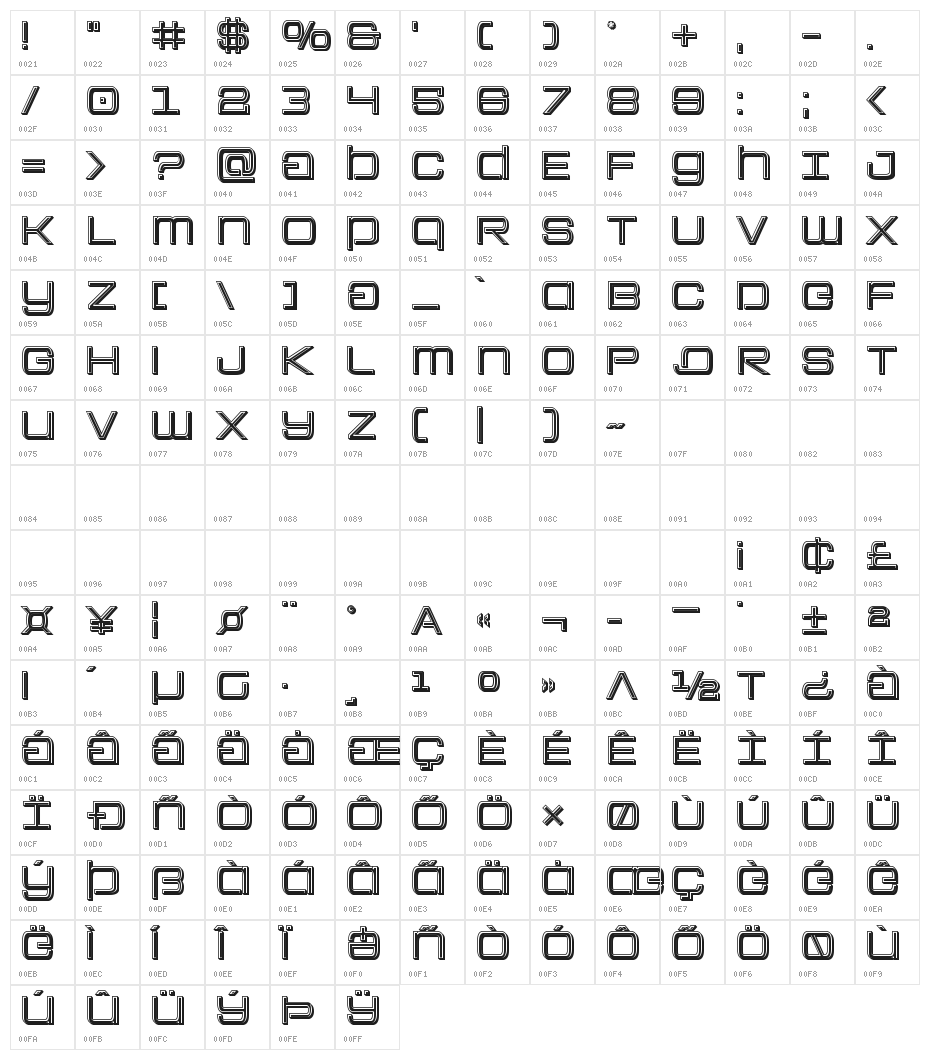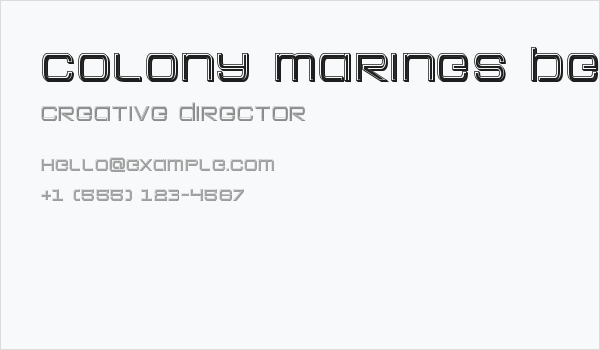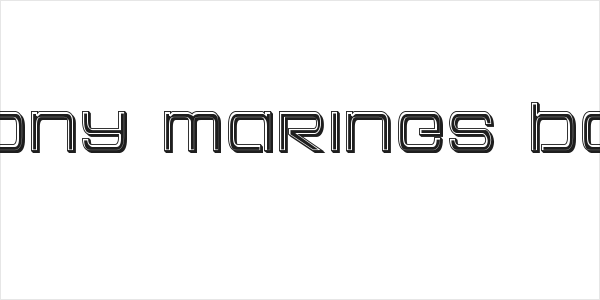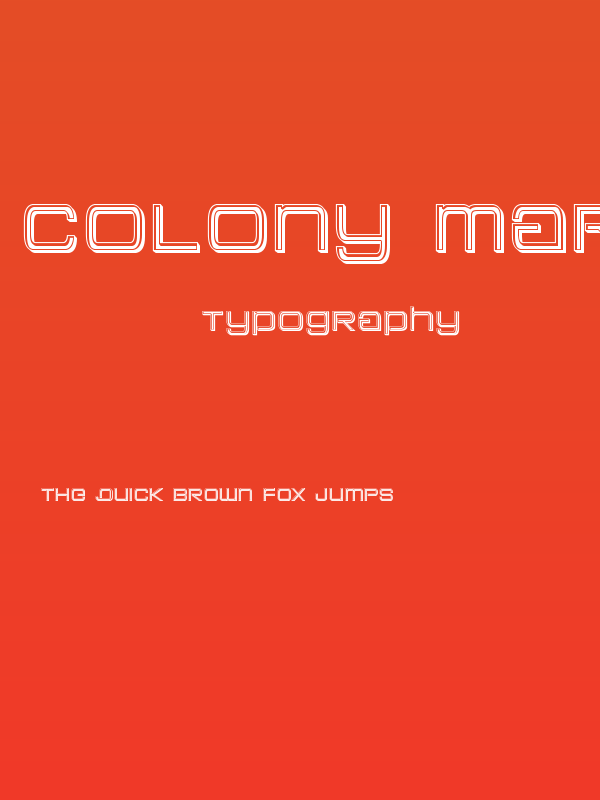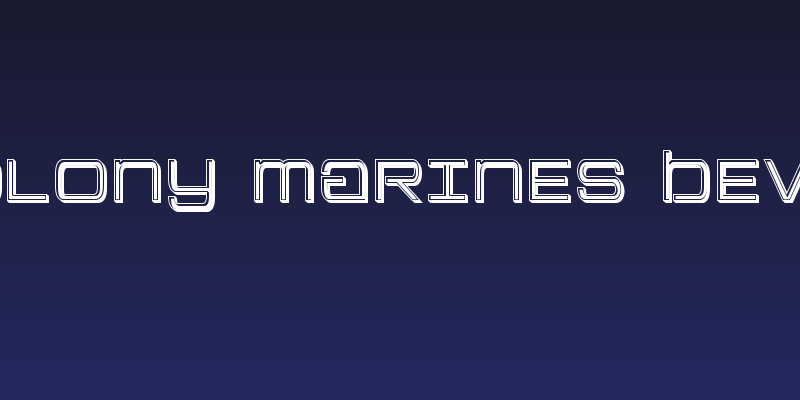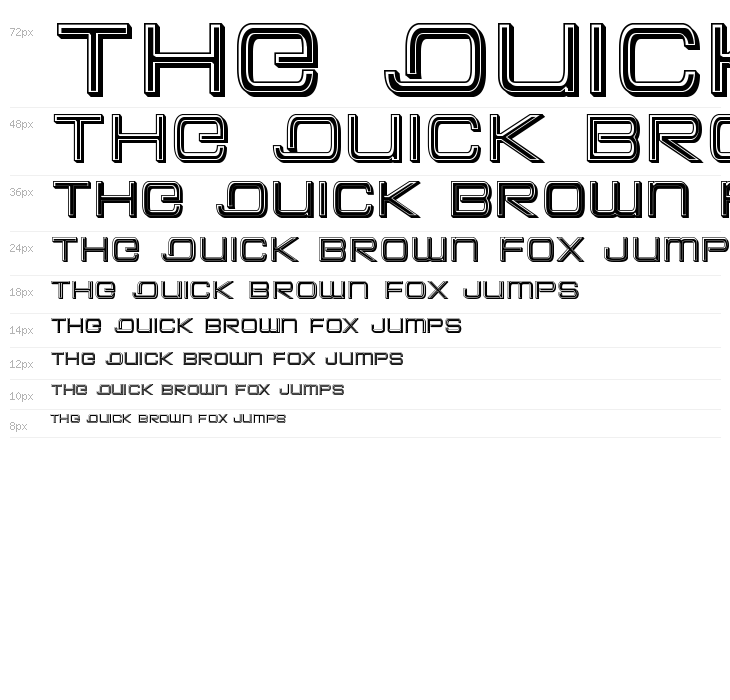
Colony Marines Bevel Font
Colony Marines Bevel Description
This font features a futuristic and industrial design with a beveled effect that gives it a three-dimensional appearance. The characters are constructed with clean, geometric lines and sharp angles, creating a sense of precision and modernity. The uppercase and lowercase letters maintain a consistent style, with the uppercase being slightly more pronounced. The numbers and special characters follow the same design principles, ensuring uniformity across the font. The overall look is bold and impactful, making it suitable for projects that require a strong visual presence.